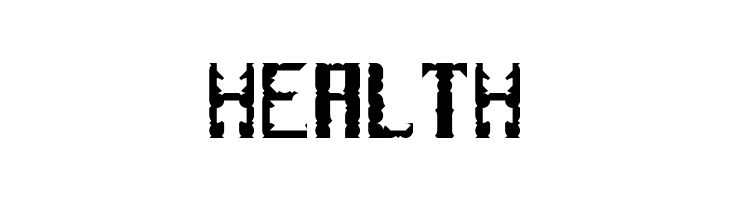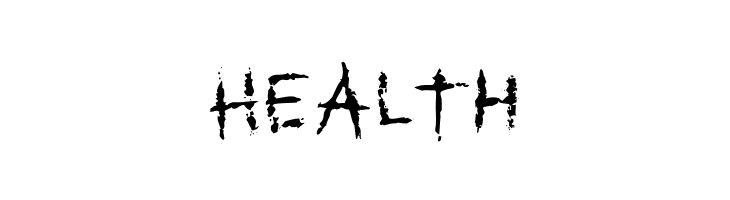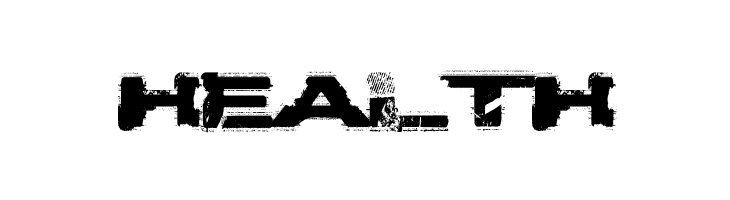
A bold, distressed font with a rugged, industrial look.
A bold, distressed font with a grunge aesthetic and rugged texture.
A bold, distressed font with a grunge, textured style.
A bold, distressed font with a grunge, textured appearance.
A rugged, distressed font inspired by ancient runic inscriptions.
A bold, distressed font with a corroded, textured appearance.
A bold, distressed font with a grunge aesthetic, perfect for impactful designs.
A bold, distressed font with a vintage, textured appearance.